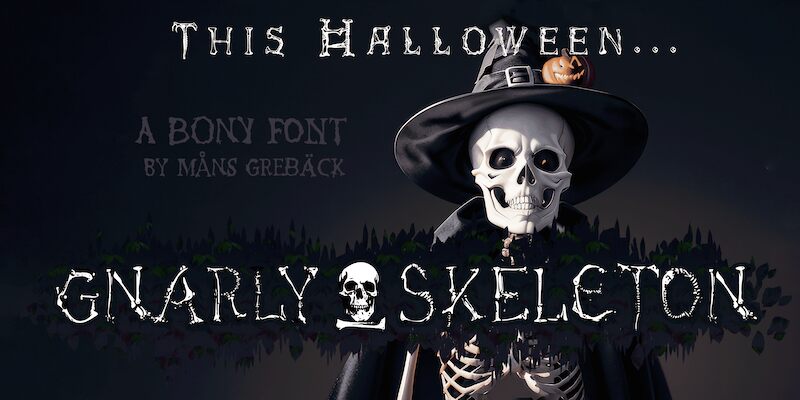
Gnarly Skeleton Black PERSONAL Regular
The Gnarly Skeleton Black font, designed by Mans Greback, is perfect for projects that aim to evoke a spooky and eerie atmosphere.
Its halloween-inspired style with eroded edges adds a haunting touch to any design, making it ideal for horror movie posters, haunted house event flyers or gothic-themed book covers. The semi-light weight of the font gives it a delicate and ethereal appearance, adding an extra layer of mystery to your designs. Whether you're working on a Halloween-themed website or creating chilling invitations for a costume party, Gnarly Skeleton Black is sure to leave a lasting impression on your audience.
Use the currency symbol to make a skull.
Example: haLlweEn
Use multiple to make different skulls.
Example: Darkness